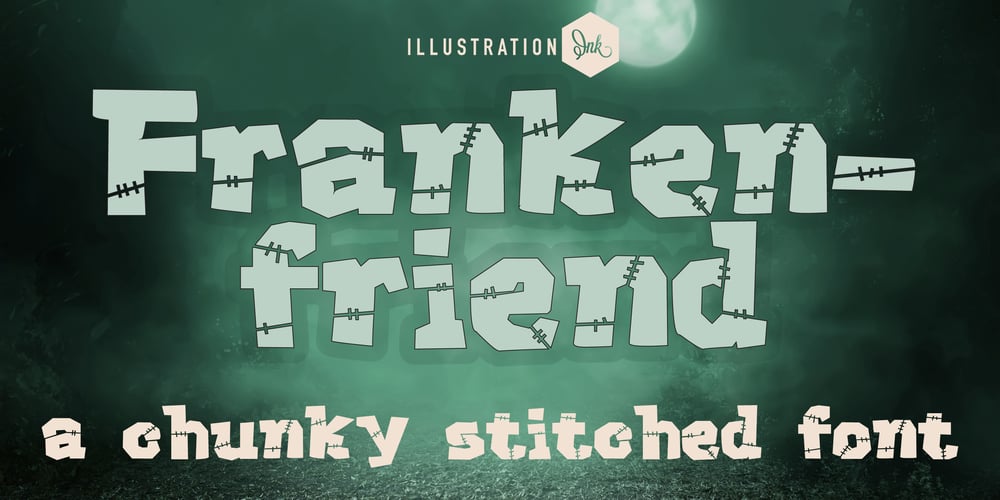
ZP Frankenfriend Font Family was designed by Illustration Ink and published by Illustration Ink. ZP Frankenfriend contains 1 styles and family package options. This crafty, blocky font features a chunky lettering with “stitches” throughout for a Frankenstein monster like feeling.A hand-crafted font is a font that is designed to look like it was written by hand. It is often used for invitations, greeting cards, and other items. Handwritten fonts can be either formal or informal, and they can be used for a variety of purposes.Some of the characteristics of handwritten fonts include: The letters are not perfectly uniform in size or shape. There may be slight variations in the spacing between letters and words. The font may have a “wiggly” or “squiggly” appearance. The font may be difficult to read at small sizes. Handwritten fonts can be a great way to add a casual touch to your designs. They can also be used to create a sense of nostalgia or whimsy. However, it is important to choose a handwritten font that is appropriate for the project you are working on. A formal handwritten font may not be appropriate for a casual invitation, while an informal handwritten font may not be appropriate for a corporate document.